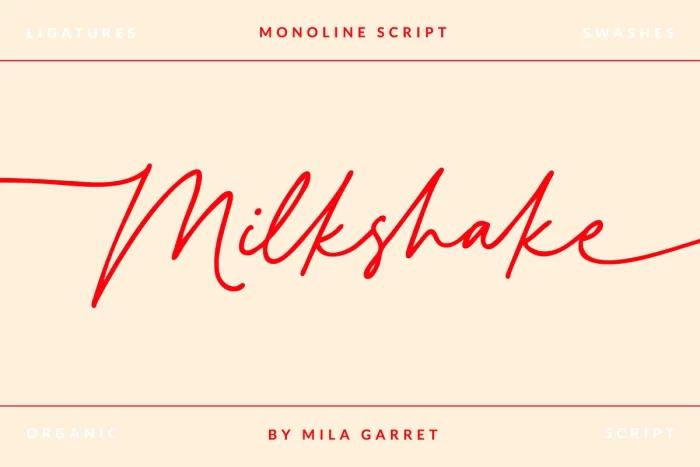
Meet Milkshake Script, a modern handwritten font loaded with ligatures for that handwriting look. Milkshake Script can be used for wedding invitations and wedding calligraphy, feminine or organic logos, small business branding, packaging, and more!
- Full Set of standard alphabet and punctuation
- Extra set of beginning swashed lowercase
- Extra set of ending swashed lowercase
- Extra set of beginning swashed uppercase
- 99 Handwritten ligatures
- Multilingual Characters